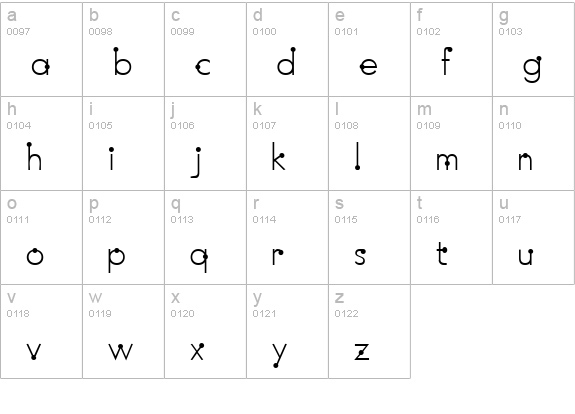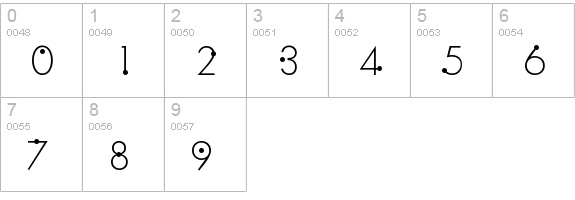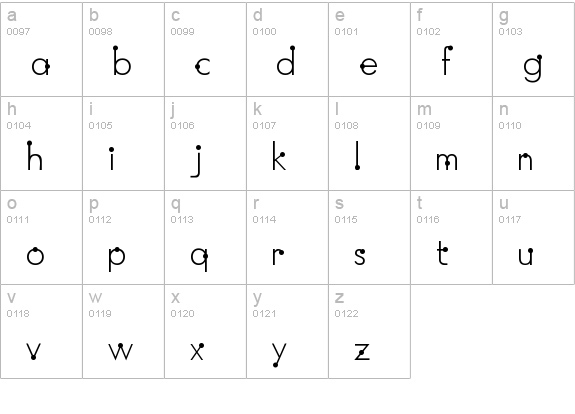
BoumBoum (Free version) Font Details
BoumBoum (Free version) font is a charming and playful typeface that is perfect for adding a touch of whimsy to your designs. With its rounded edges and friendly appearance, this font is ideal for creating eye-catching headlines, invitations, and social media graphics. The free version of BoumBoum font offers a limited set of characters but still retains all the charm and creativity of the full version. Best of all, this font is freely available to download at FontsMarket.com, making it easy to add a fun and unique element to your projects without any cost. Whether you're working on a personal project or a professional design, BoumBoum (Free version) font is sure to bring a smile to your audience's faces.